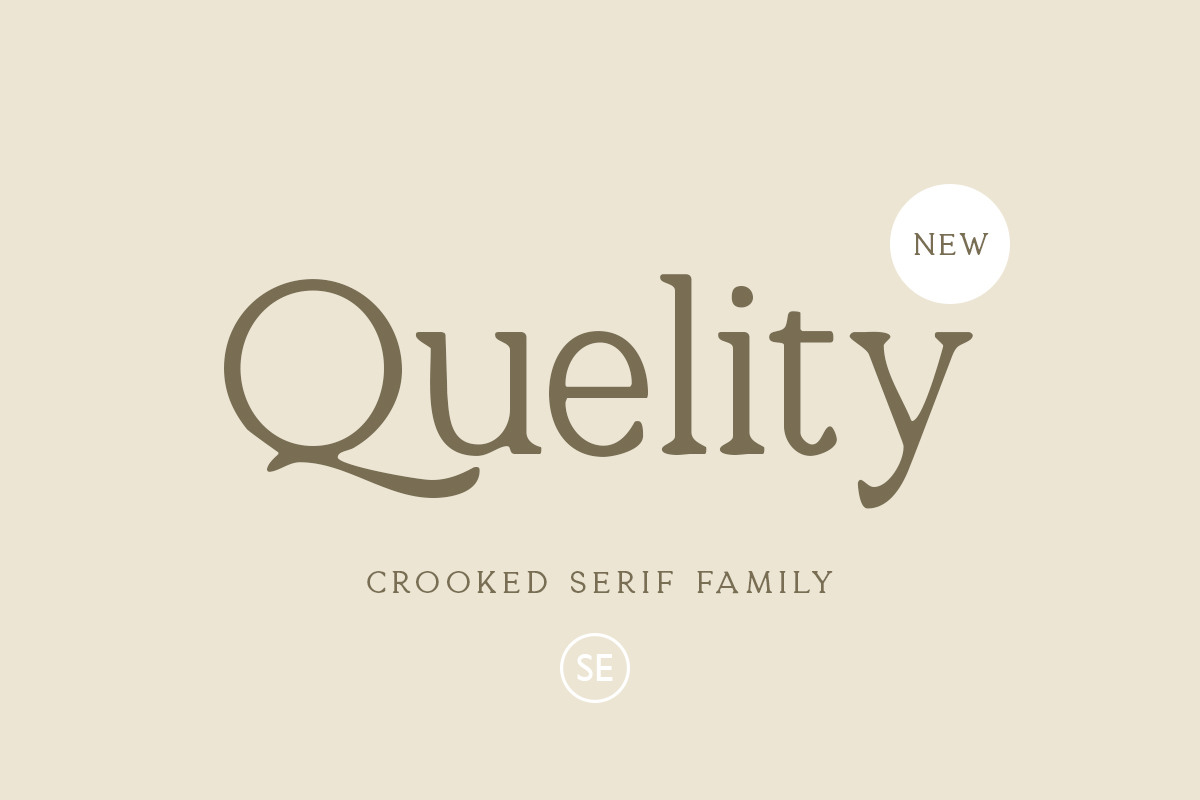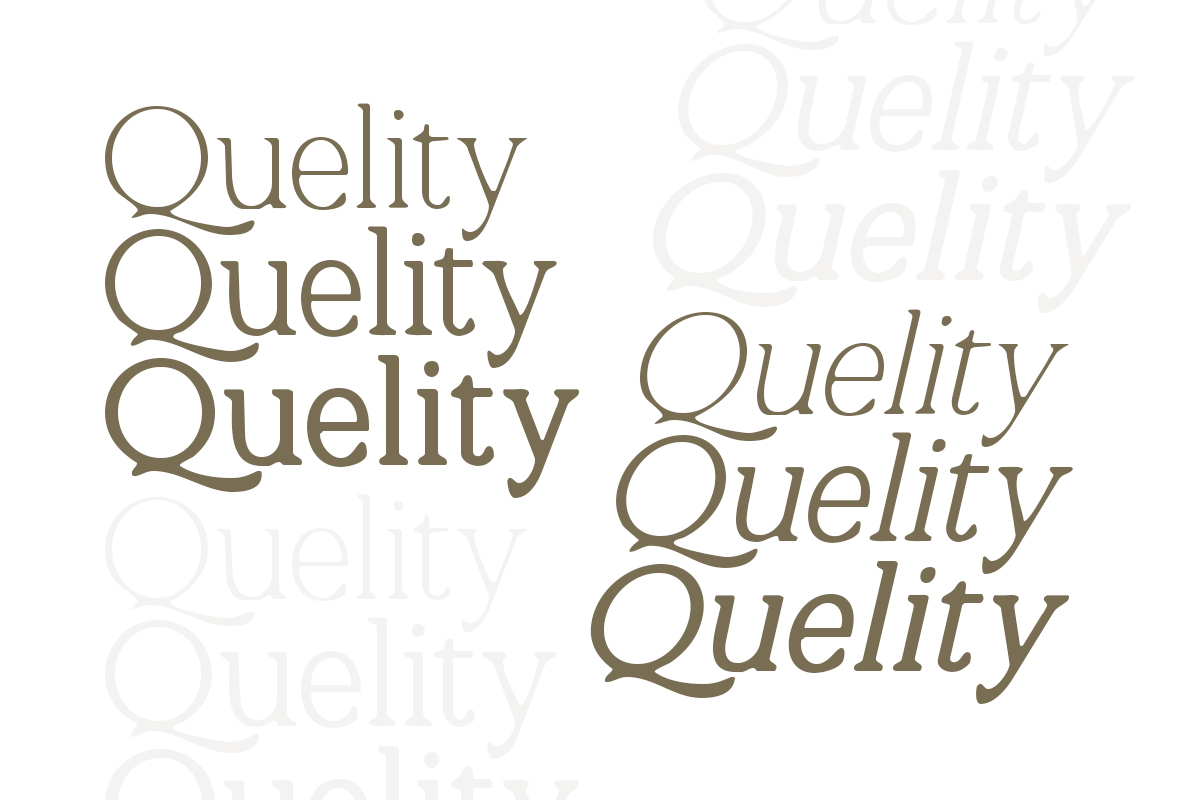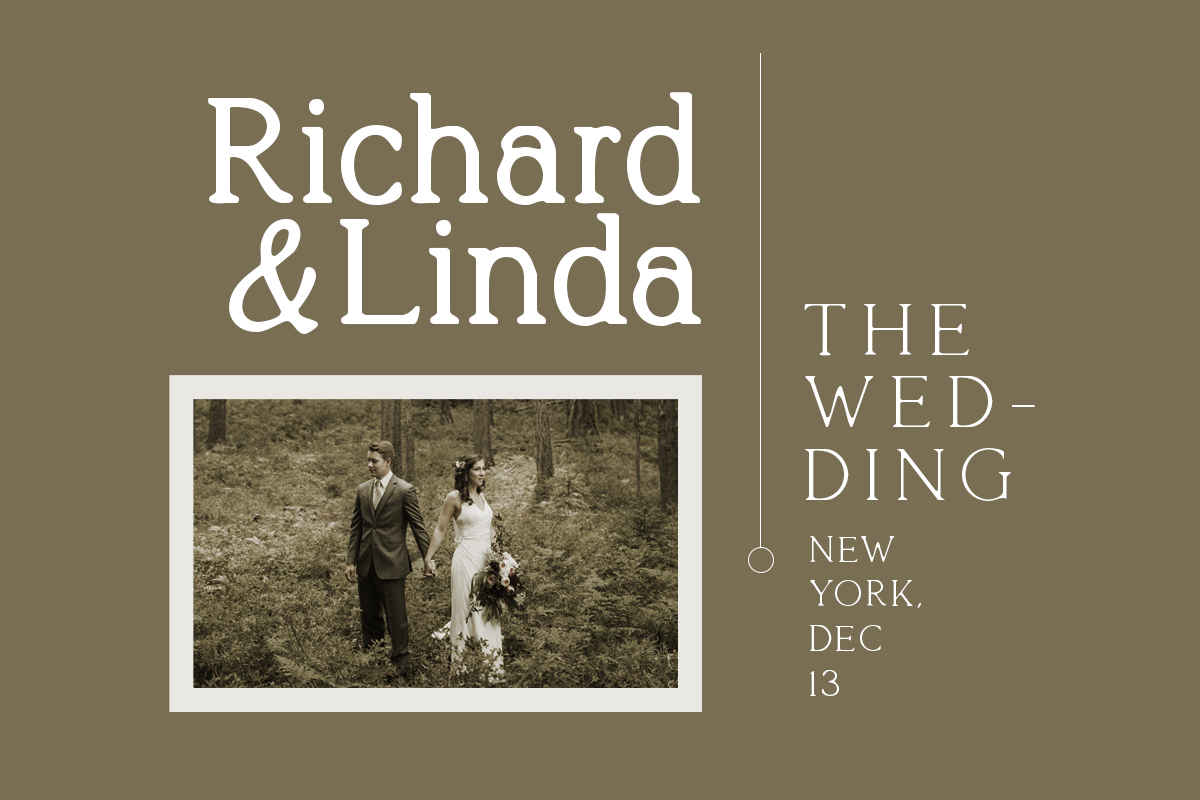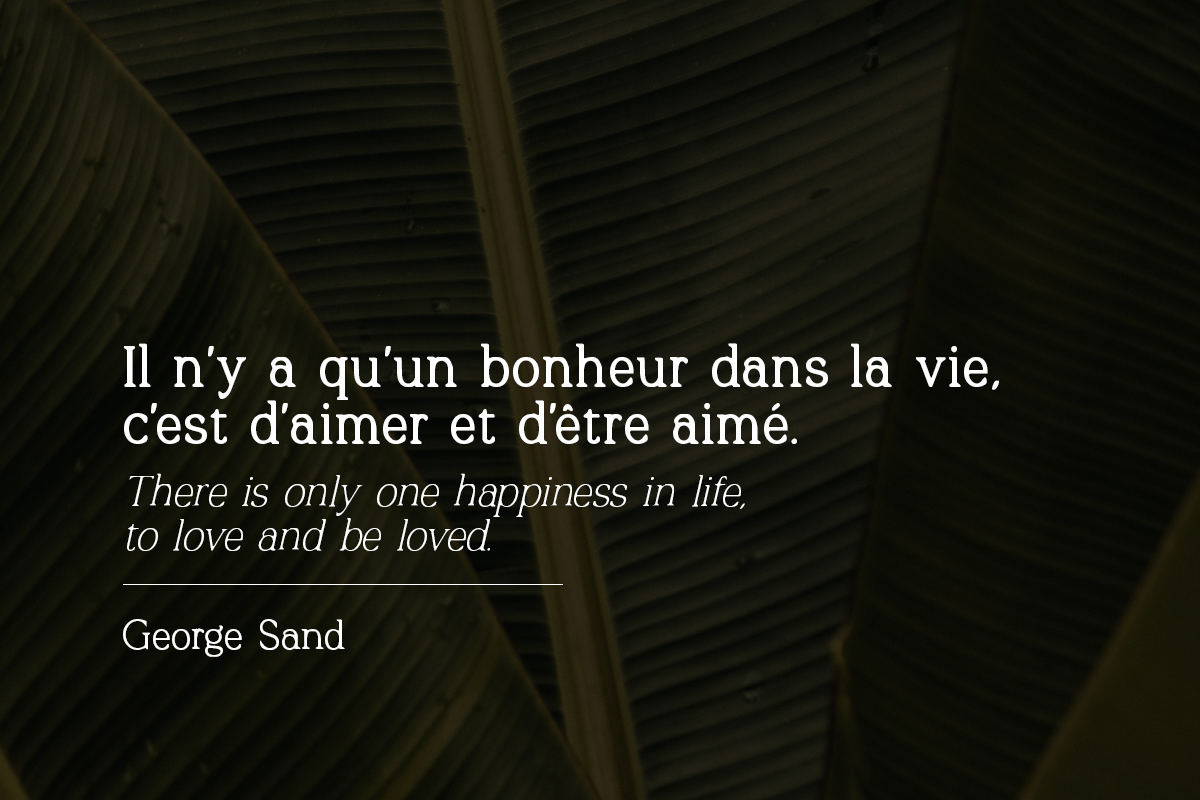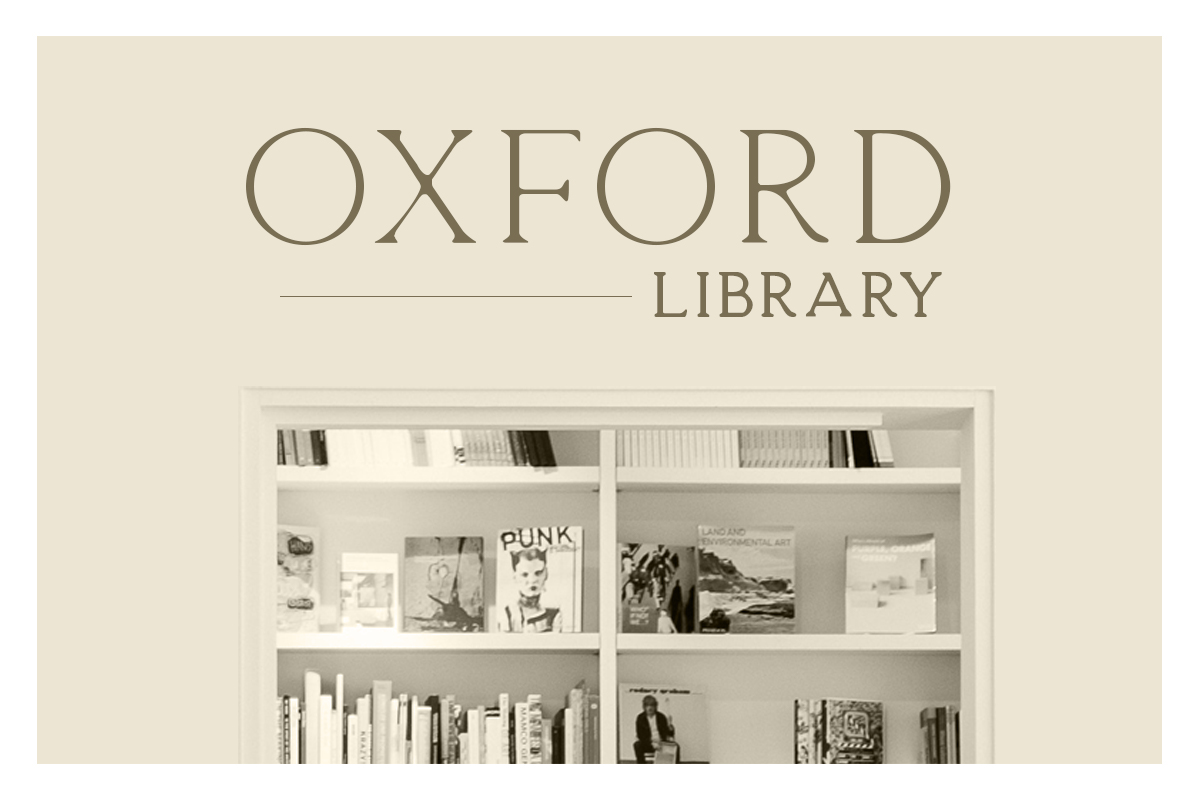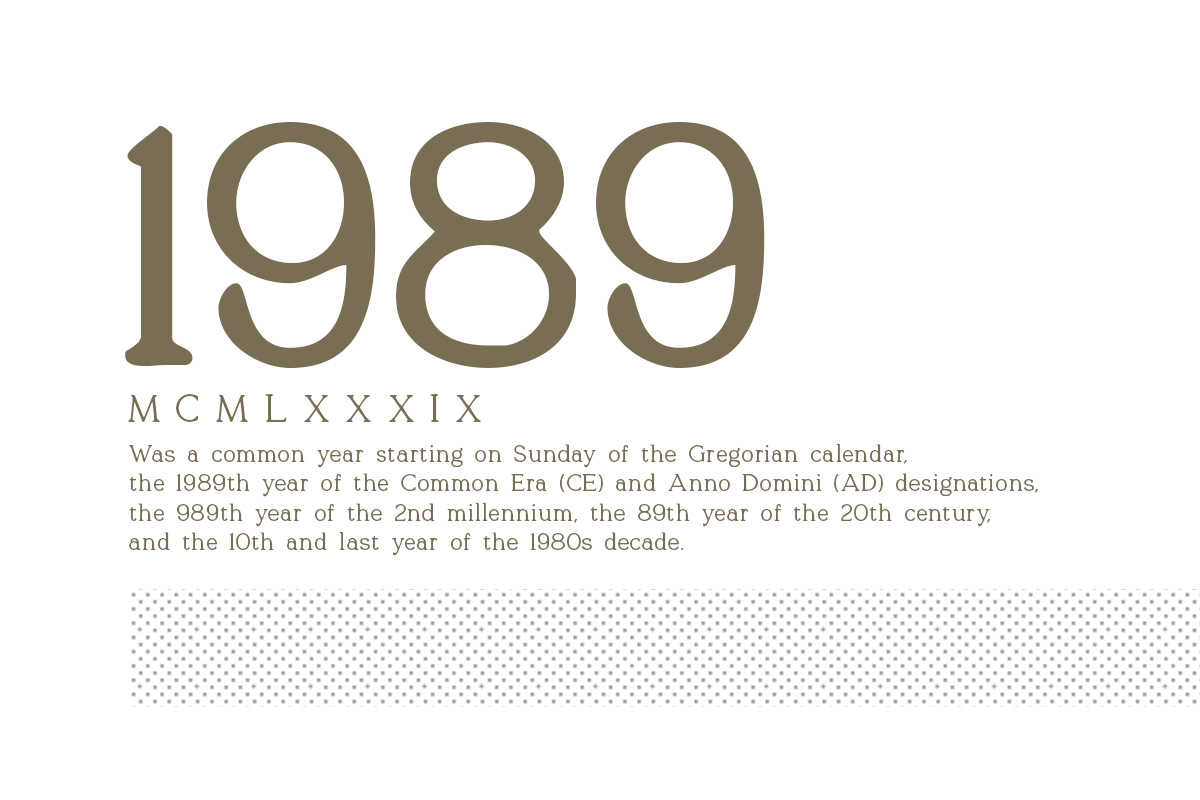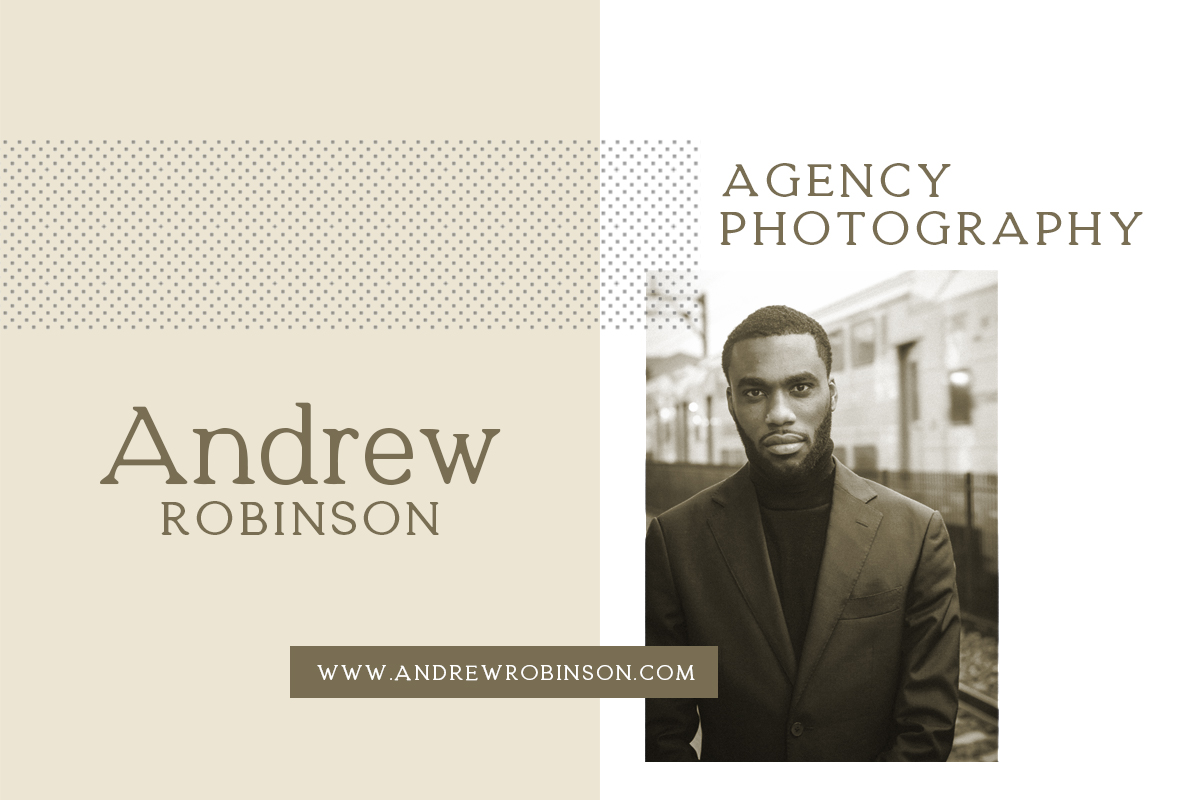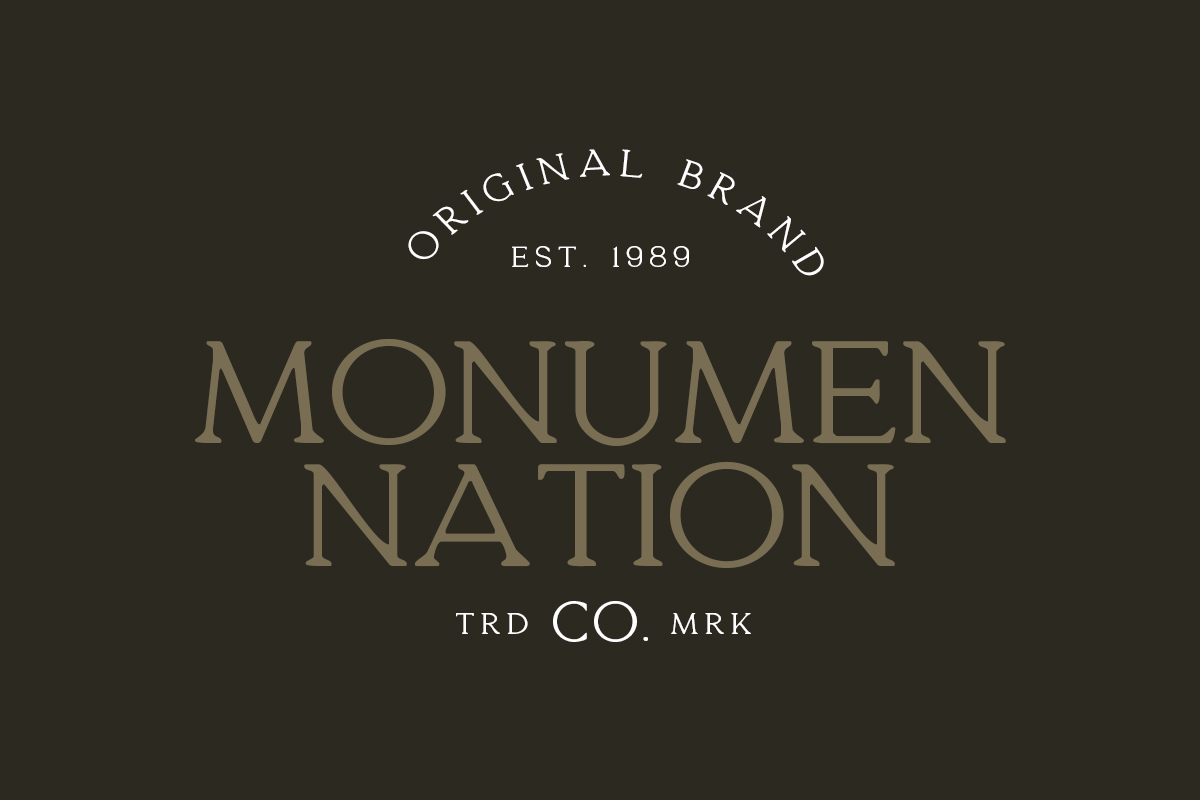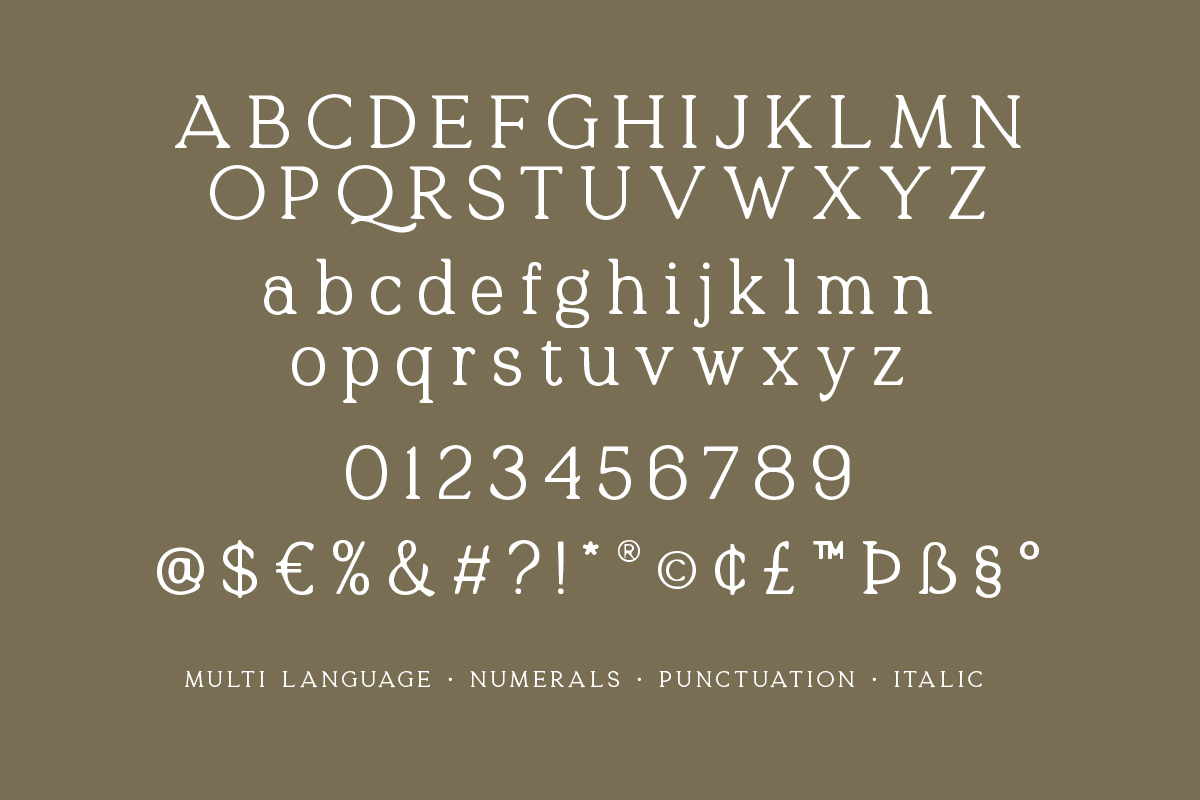
Introducing, Quelity. A crooked serif family!
Quelity is a crooked serif family with natural and organic feels! Contain 16 fonts. Including Light-Regular – Bold with an italic each style. You can use this font for every project. Suitable for branding logo, a classic theme, and also for text. This font family also support multilingual, number and symbol. If you bored with a casual serif, maybe this font is for you!